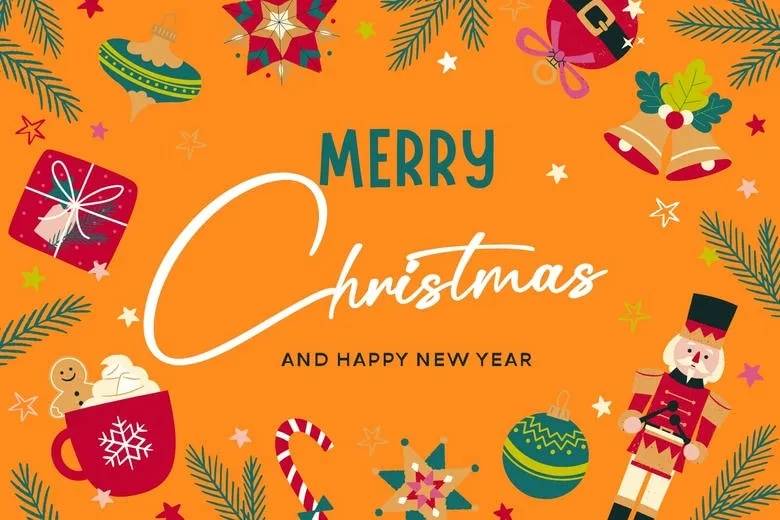
Costtarigain looks like a quick signature with a fine pen. Bery Arisandi of Basnistudio gave it tall, loose capitals, a low lowercase and a long tail that runs under the word on the title card. White on bright orange, it looks casual and friendly.
A black business card shows “Gwen Stevanie” in gold, which is exactly the kind of job it suits. A Christmas card sets “Merry Christmas and happy new year” with Christmas in the script and the rest in a plain sans, surrounded by baubles, candy canes and a nutcracker. Keep it to names and short lines. The download is one OTF.
Best uses for Costtarigain
- Business cards
- Signature logos
- Greeting cards
- Instagram posts
- Photography watermarks
Pair Costtarigain with a sans in caps, such as Montserrat or Josefin Sans.
Costtarigain Signature Script Font